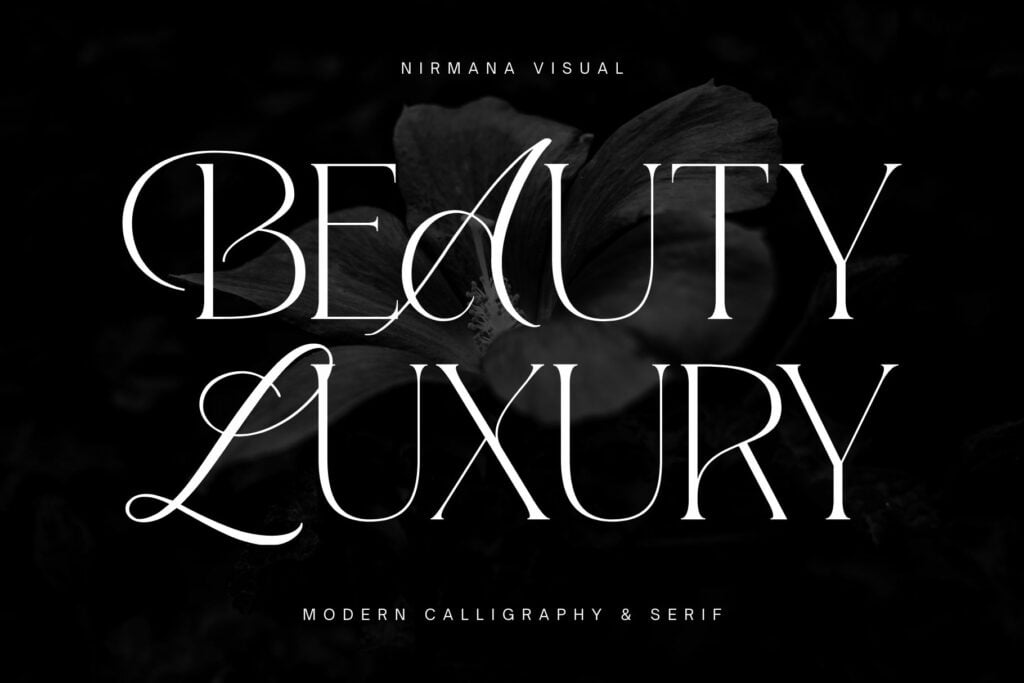
Beauty Luxury Font
Beauty Luxury Font is a modern typeface crafted & designed by Nirmana Visual, mix of modern calligraphy and serif. full set of lowercase and uppercase letters, numerals and punctuation, multilingual symbols. Created for poster, web design, branding, illustrations, badges, and some other works. Font Duo Hybrid Script and Serif.
Beauty Luxury Serif Font